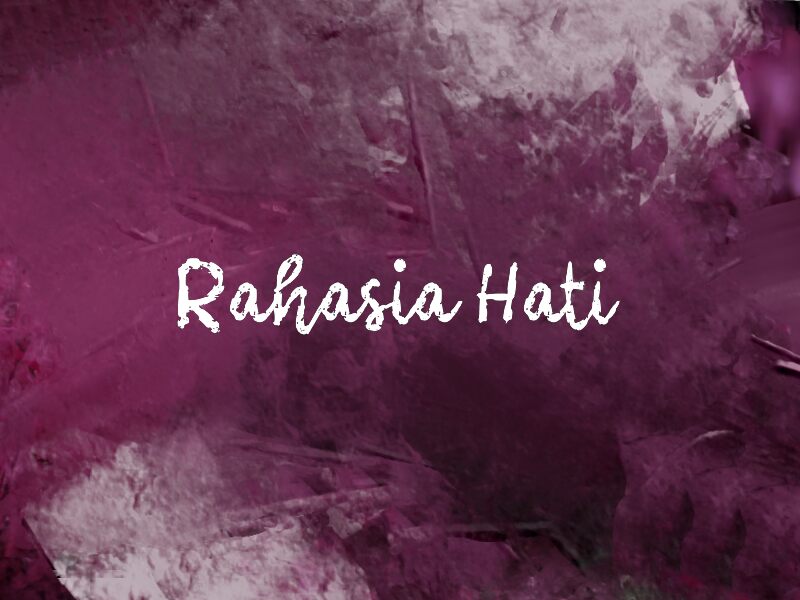
Rahasia Hati font by Wep is a free brush font with an authentic and expressive style. With its textured and rustic appearance, this typeface captures a personal and artistic touch, perfect for designs that require a genuine and organic feel. This casual and handwritten-inspired font is the ideal choice for designers who wish to infuse their projects with a unique flair.
The font's open-ended form makes it suitable for a range of use cases including posters, invitations, stationery, logos, apparel design, photography, quotes, blog headers, or any project requiring an artistic touch. Its expressive characters deliver personality to the visual communication of each of your masterpiece.
Rahasia Hati is a beautifully crafted free font that showcases a delicate balance between elegance and readability. This font is perfect for a variety of design projects, including invitations, greeting cards, and branding materials. With its unique character shapes and flowing lines, Rahasia Hati brings a personal touch to any text.